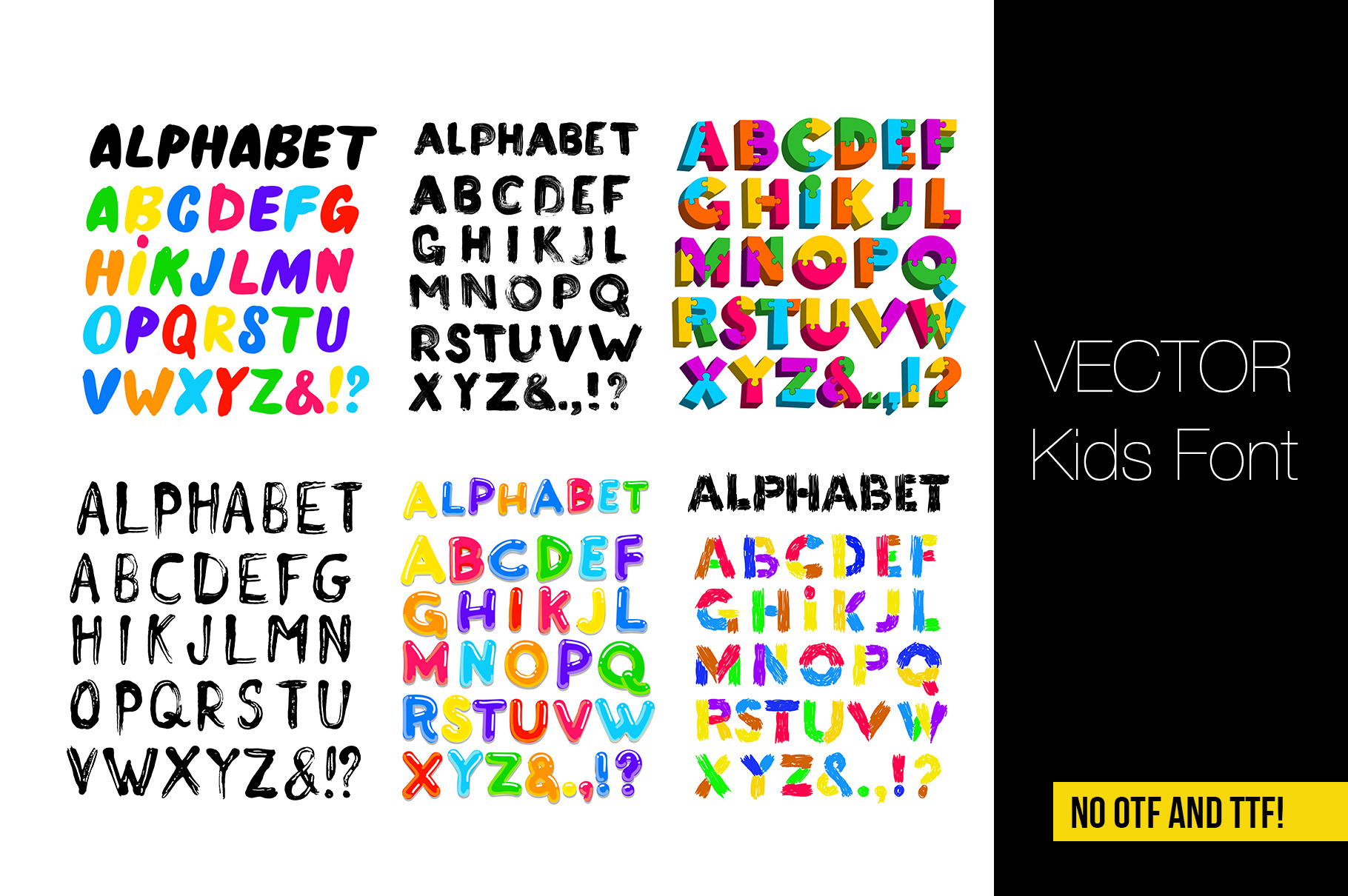
Kids font vector
Kids font in the cartoon style, alphabet and numbers. Set of multicolored bright letters for inscriptions and your design . Vector illustration. Isolated on white background.